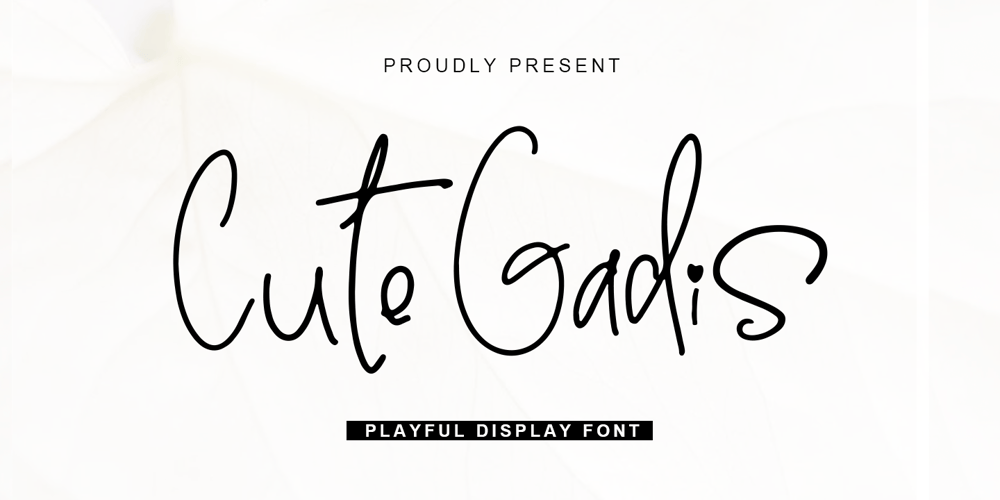
Cute Gadis
Cute Gadis font
Cute Gadis Font Family was designed by Rizal Aiyub and published by Fontysia. Cute Gadis contains 1 styles and family package options. Cute Gadis is a delightful display font that exudes sweetness and charm. With its playful style and light weight, Baby Love captures the fluidity and elegance of cursive handwriting. Each letter flows seamlessly into the next, creating a sense of rhythm and movement that is both captivating and inviting.The design of Cute Gadis resembles the natural strokes of a pen on paper, adding to its handwritten charm and authenticity. In addition, enjoy the features here.Cute Gadis fits in headlines, logos, posters, flyers, branding materials, print media, editorial layouts, and many more designs. Find out more ways to use this font by taking a look at the font preview.Thanks for purchasing our fonts. Hopefully, you have a great time using our font